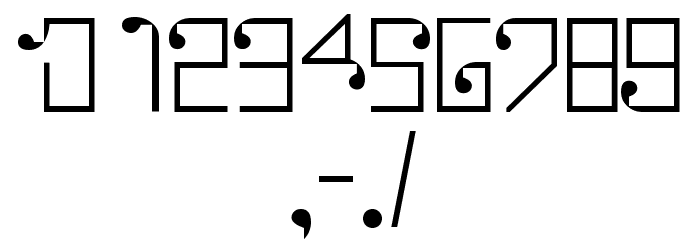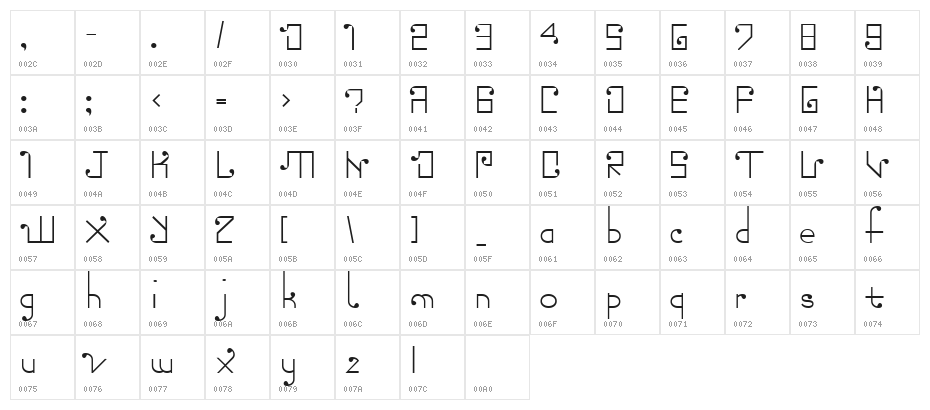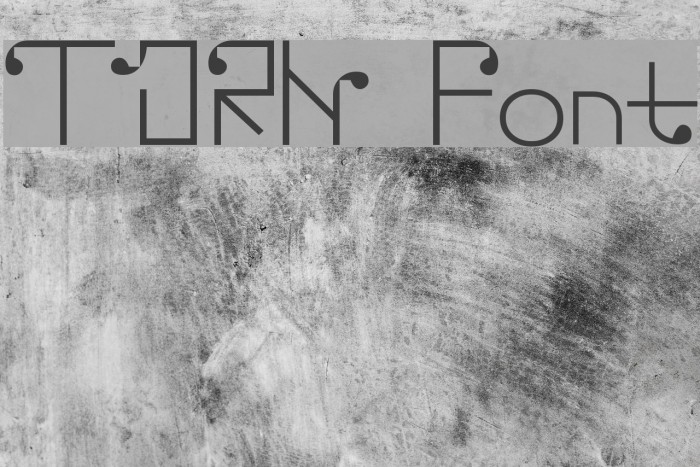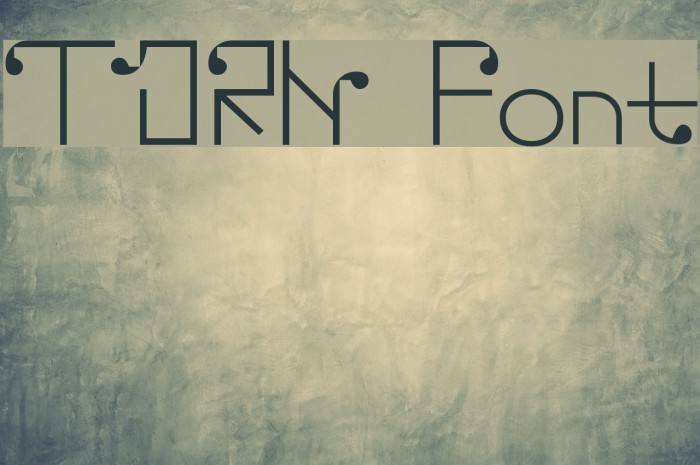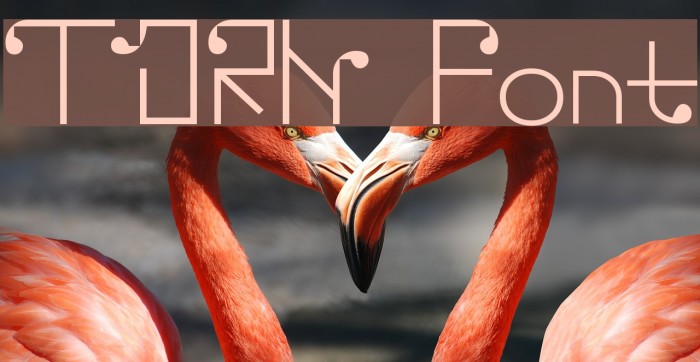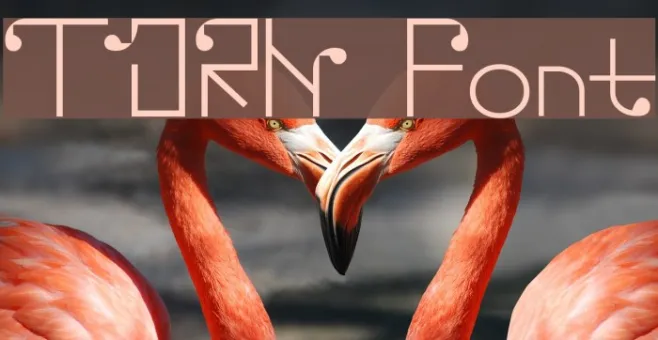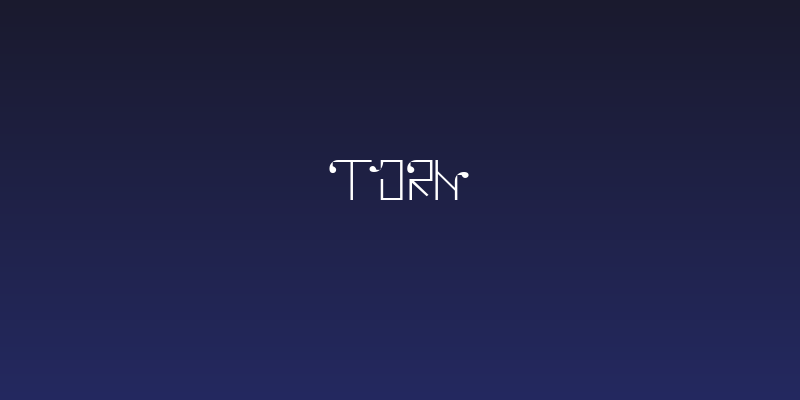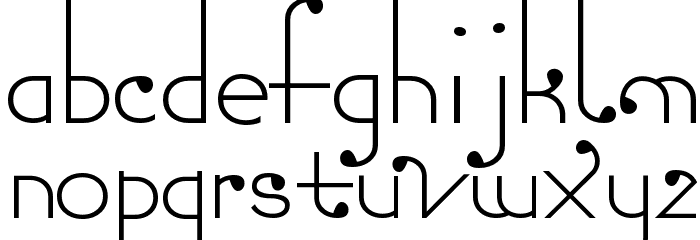
TORN Font
TORN Description
This font features a unique and artistic design with playful, swirling elements integrated into each character. The uppercase letters are characterized by bold, geometric shapes with distinct curls and loops that add a whimsical touch. The lowercase letters maintain a similar style, offering a cohesive look throughout the typeface. Numbers and special characters follow the same design principles, ensuring consistency. The overall appearance is modern and decorative, making it suitable for creative and eye-catching projects.
| Use Case | Headlines, Logos, Artistic projects |
| Proposed Projects | Ideal for creative projects such as posters, branding, and artistic invitations where a unique and eye-catching typeface is desired. |